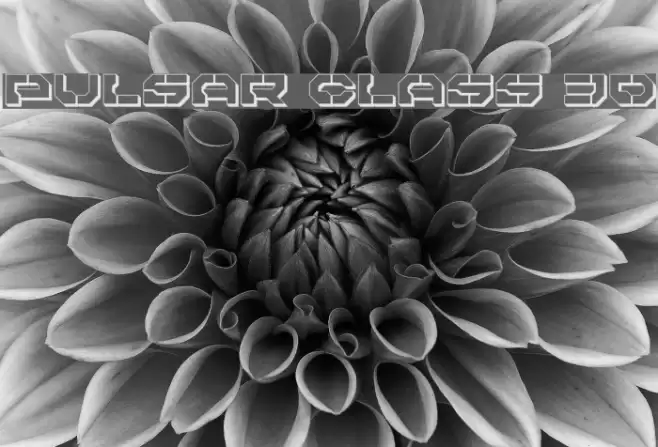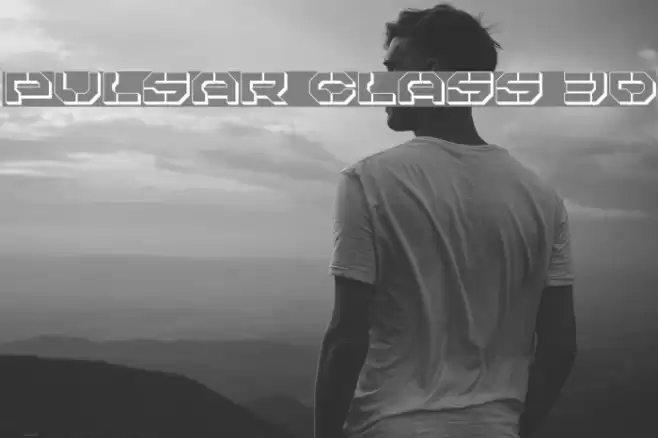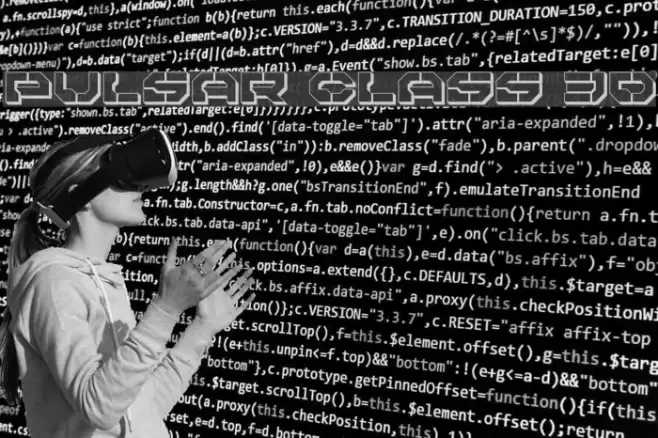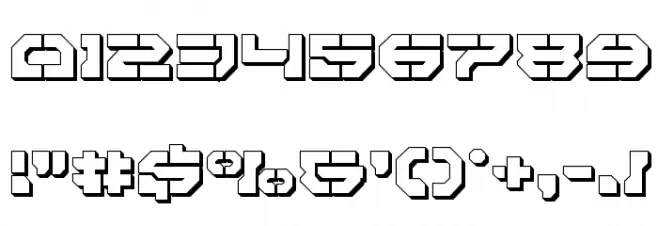
Pulsar Class 3D Font
Pulsar Class 3D Description
This font features a bold, geometric design with a three-dimensional effect, characterized by sharp angles and a futuristic aesthetic. Each character is outlined, creating a sense of depth and structure. The uppercase and lowercase letters maintain a consistent style, with angular cuts and a blocky appearance. Numbers and special characters follow the same design principles, ensuring uniformity across the typeface. The font's unique style makes it stand out, suitable for projects that require a modern and edgy look.
A bold, geometric font with a 3D effect and futuristic style from Uncategorized fonts.
- Proposed Projects: Ideal for sci-fi themed posters, video game titles, tech branding, and modern art installations.